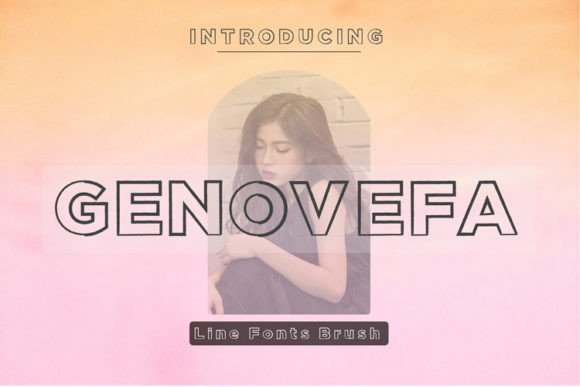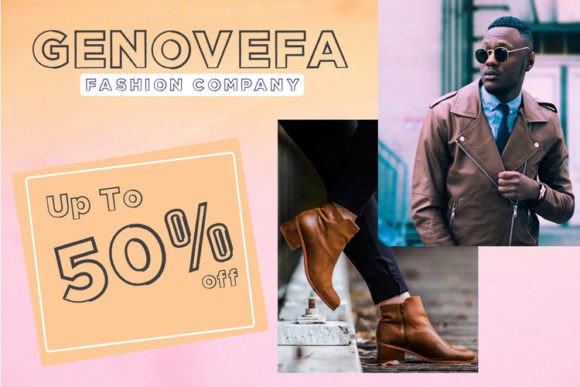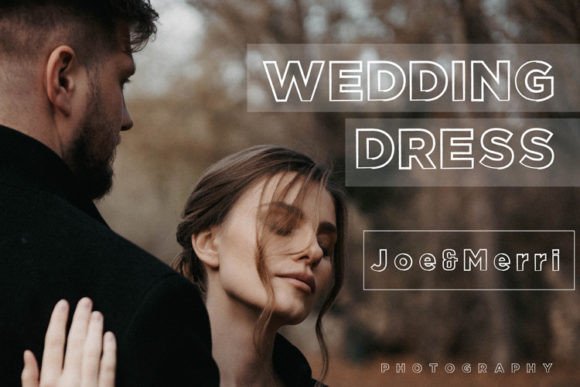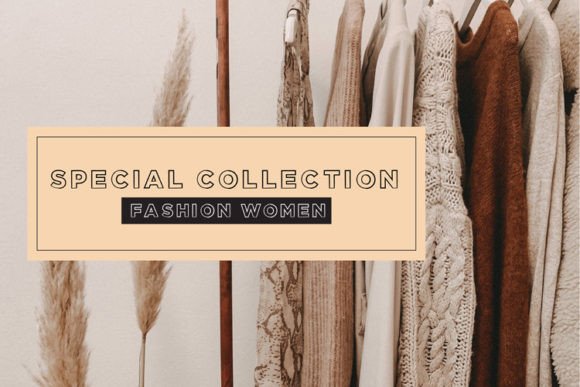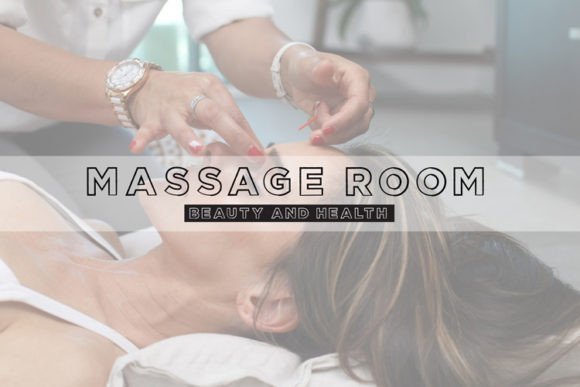
Designing with Personality
Have you ever been stuck on a design project, struggling to find the perfect font to capture your creative vision? You know the moment when a font suddenly clicks, and everything falls into place? That’s what happened when designers first laid eyes on the Genovefa Font.
Genovefa is a bold, attention-grabbing typeface that boasts an attractive brushed look and a sans-serif style with reverse contrast. Its imperfect, casual charm still manages to deliver excellent legibility, making it a powerful choice for designers. Whether you’re working on a headline, poster, billboard, magazine, or advertisement, the Genovefa Font is sure to make your designs stand out.
For designers, the Genovefa Font offers a unique blend of style and functionality, allowing you to create visually striking designs that truly reflect your brand’s personality.
Key Features of Genovefa Font
- Unique Characteristics: Genovefa Font boasts a unique blend of modern and classic elements, making it perfect for various design projects, from logos to brochures and websites.
Designer Review: Genovefa Font
Overall, I think the Genovefa Font is a beautiful addition to any design project. It’s elegant, refined, and perfect for creating a sophisticated look. ✨
The font’s versatility is one of its strongest points. It works well for both body text and headings, and its clean lines make it easy to read even at small font sizes. ✨ The font also comes in a range of weights and styles, which gives designers a lot of flexibility when it comes to creating visual interest. ✨
However, there are a few limitations to consider. ⚠️ For one, the font may not be as effective for bold or dramatic headlines, as it tends to look a bit too refined and subtle. ⚠️ Additionally, the font’s lack of italic or oblique styles can make it difficult to create emphasis or add visual interest to certain types of text. ⚠️
Despite these limitations, I think the Genovefa Font is a great choice for designers who want to create a clean, elegant look. It’s a solid addition to any design library, and its versatility makes it a great choice for a wide range of projects.
- Beautiful, refined design
- Multiple weights and styles
- Easy to read at small font sizes
- Not ideal for bold or dramatic headlines
- Lack of italic or oblique styles
Genovefa Font Practical Application Guide
Getting the Most Out of Genovefa Font
Here are some tips for getting the most out of Genovefa Font:
- Use Genovefa Font in combination with other elegant fonts to create a cohesive design.
- Apply Genovefa Font to headings and titles to add emphasis.
Genovefa Font is perfect for:
- Formal event invitations and announcements.
- Luxury branding and marketing materials.